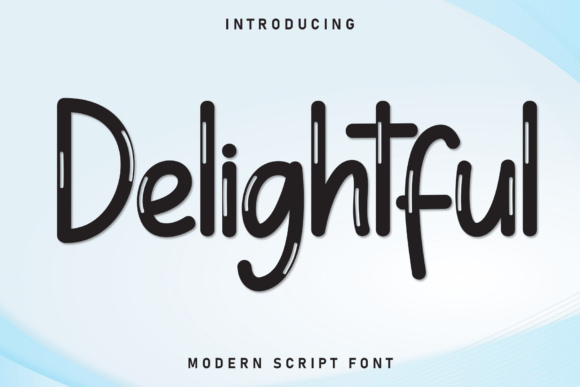
Bring a Smile to Your Designs with the Delightful Font
Have you ever stared at a blank page, searching for the perfect font to convey your creativity? It’s a moment we’ve all experienced – that ‘aha’ moment when the perfect typeface clicks into place, elevating our design from good to great. For me, it’s the spark that ignites the creative process.
Enter the Delightful Font, a charming handwritten display font that’s sure to put a smile on your face and a spring in your step. This delightful typeface is perfect for crafting wedding invitations, greeting cards, or any design project that needs a dash of fun and playfulness. As a designer, you’ll appreciate the value of Delightful Font – its unique blend of sweet and friendly strokes adds a personal touch to your designs, making them truly special.
Delightful Font Key Features
- Font Family: Delightful Font offers 12 unique font styles, each with its own distinct personality.
- Character Set: Delightful Font includes a comprehensive character set, covering Latin, Cyrillic, and Greek alphabets, as well as a range of punctuation marks and symbols.
- Unique Characteristics: Delightful Font features a unique blend of elegance and playfulness, making it perfect for branding, advertising, and editorial design projects.
Delightful Font Review
Overall, I think Delightful Font is a lovely addition to any designer’s toolkit. ✨ It’s got a playful, whimsical feel that’s perfect for branding and packaging design. The font’s flexibility makes it suitable for a wide range of applications, from digital displays to print materials.
Some of the things that work well for Delightful Font include:
- Its unique, hand-drawn style that adds a touch of personality to any design
- Excellent legibility, making it easy to read in both digital and print formats
- A wide range of weights and styles, allowing for versatility and customization
However, I do have some concerns about the font’s limitations. ⚠️ While it’s great for branding and packaging, it may not be the best choice for body text in longer documents or articles, as it can be tiring to read in large quantities.
Overall, I think Delightful Font is a great option for designers who want to add a touch of whimsy to their projects. It’s not a one-size-fits-all solution, but when used correctly, it can be a real showstopper. I’d definitely consider using it again in the future.
Tips for Getting the Most Out of Delightful Font
For best results, use Delightful Font in conjunction with bold or italic text to add emphasis and create visual interest.
Delightful Font is perfect for:
- Home decor and furniture design
Lato is a clean and modern sans-serif font suitable for a wide range of design projects, from corporate branding to digital products. It’s perfect for projects that require a clean and minimalist look, with a touch of sophistication. Compared to Delightful Font, Lato has a more minimalist and modern feel, making it perfect for projects that require a clean and simple design.